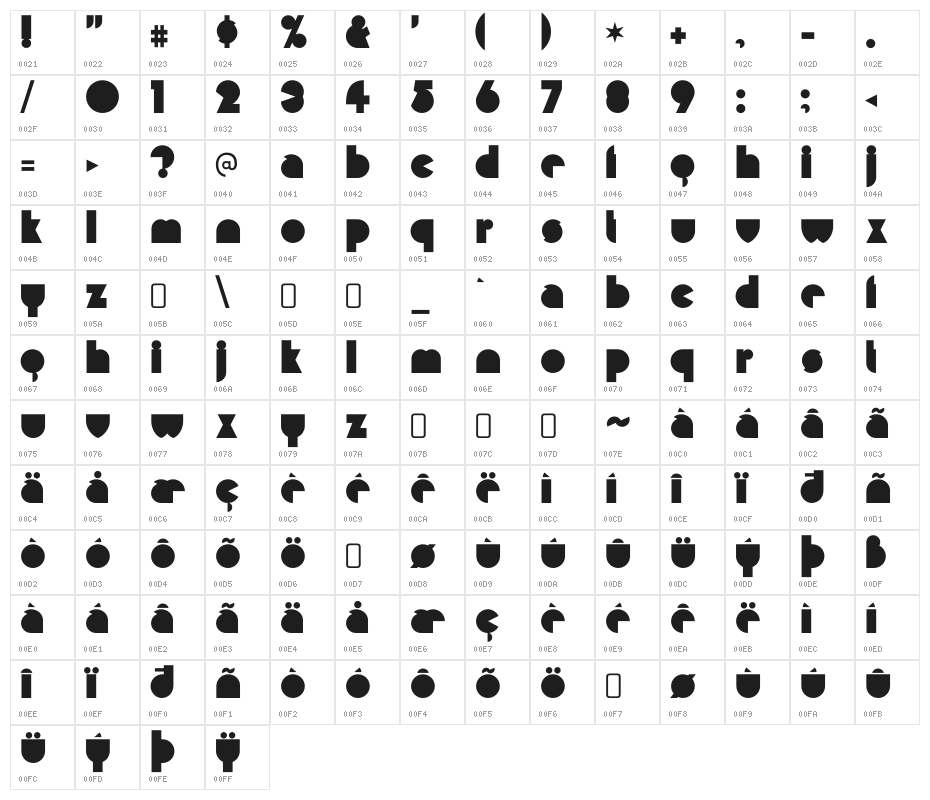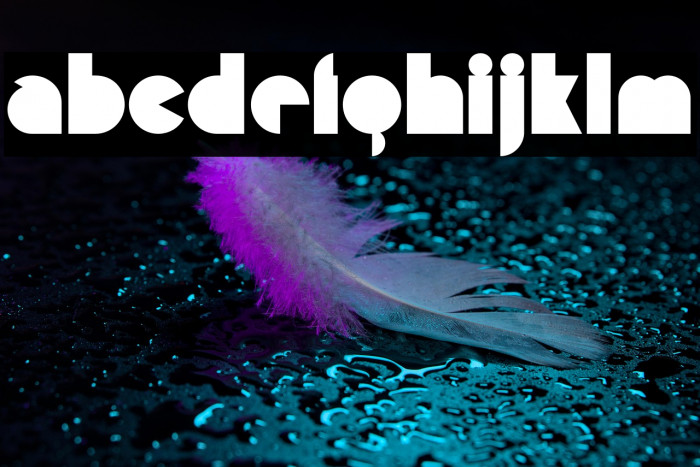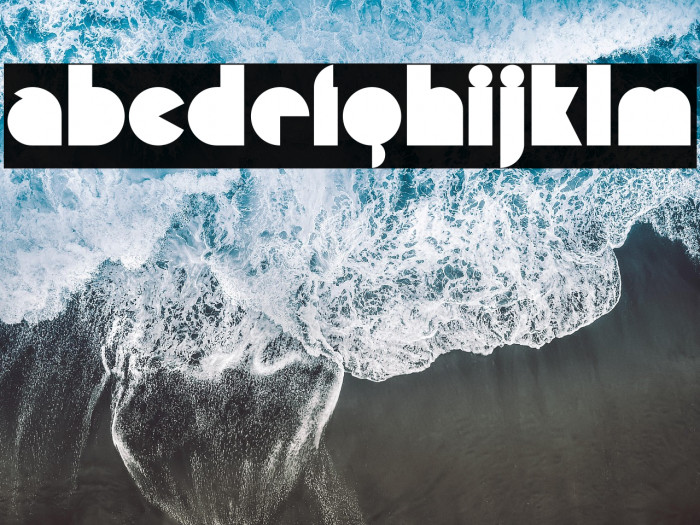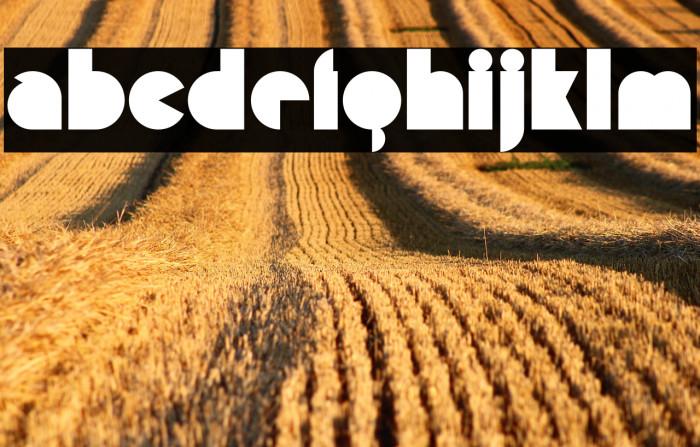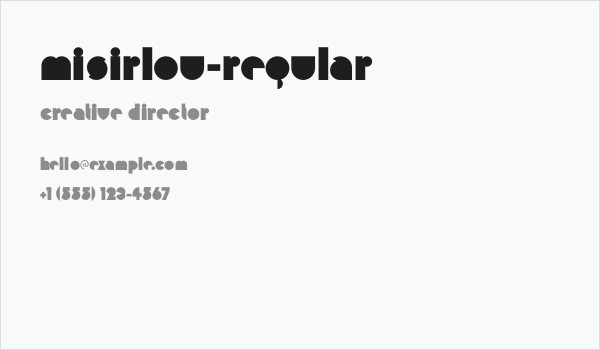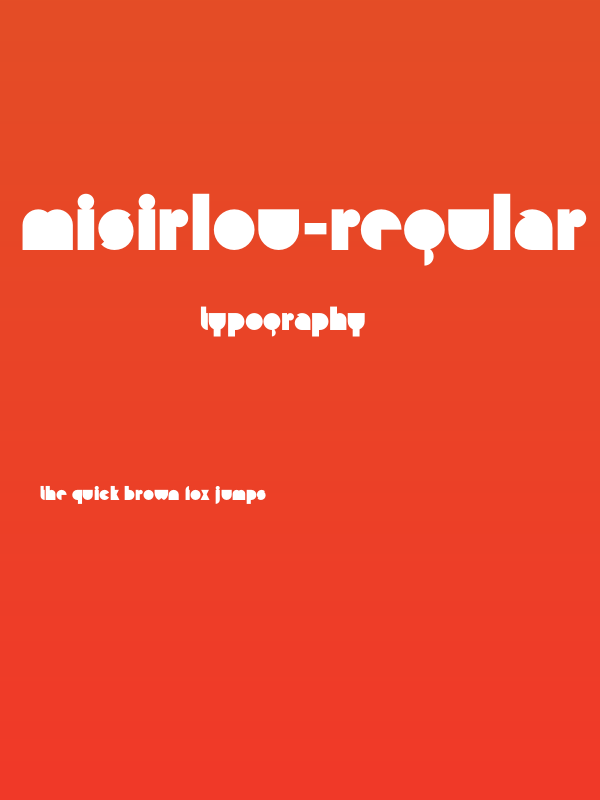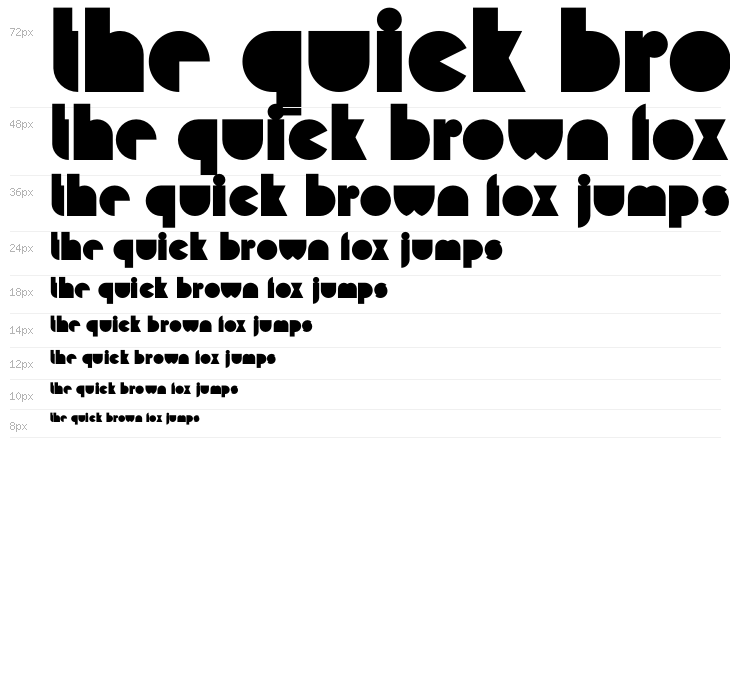
Misirlou-Regular Font
Misirlou-Regular Description
This font features a bold and geometric design, characterized by its strong, block-like shapes and high contrast. The letters are constructed with a combination of circular and rectangular forms, giving it a distinct and modern appearance. The uppercase and lowercase letters maintain a consistent style, with rounded edges and minimalistic details. Numbers and special characters follow the same geometric theme, ensuring a cohesive look across all elements. The font's unique style makes it stand out, perfect for projects that require a bold statement.
| Proposed Projects | Ideal for posters, logos, branding, and any design that requires a modern and striking visual impact. |